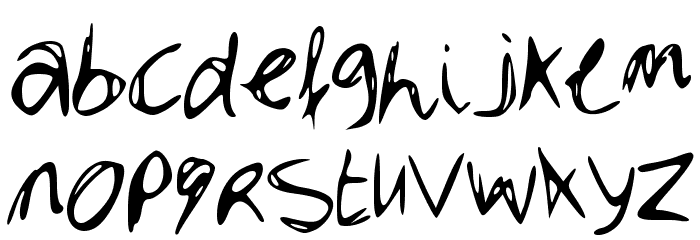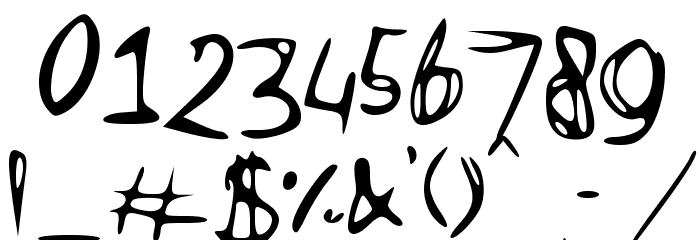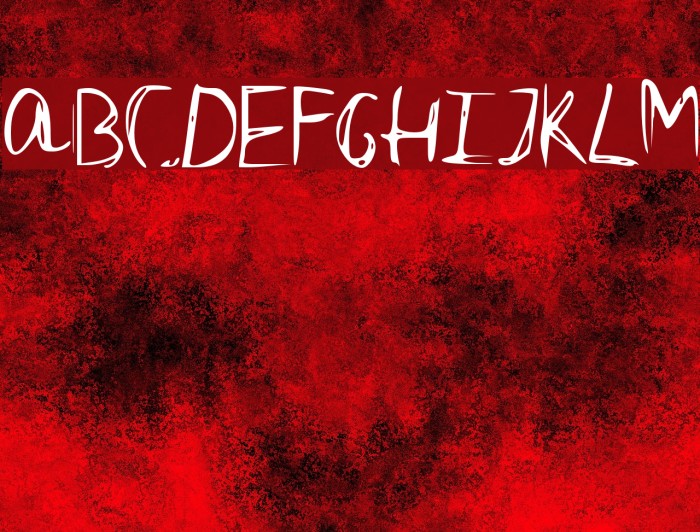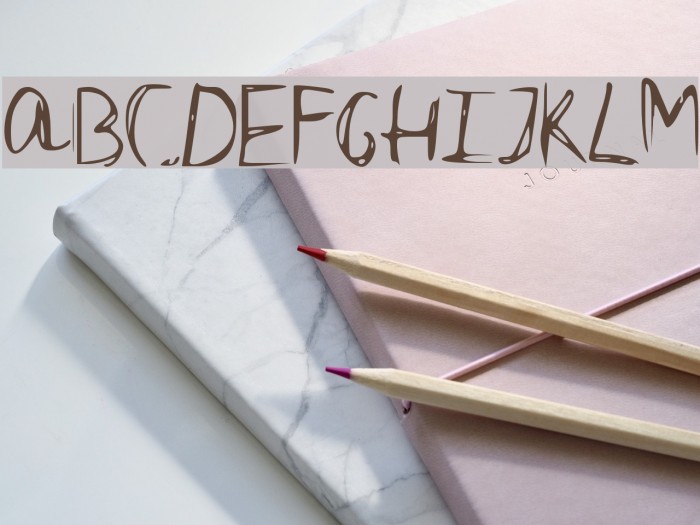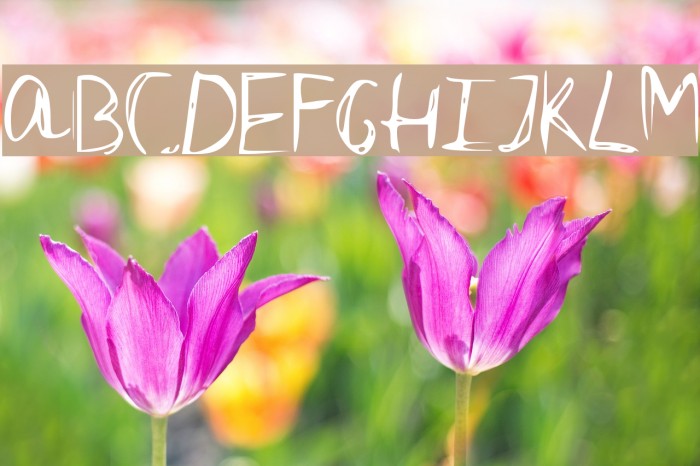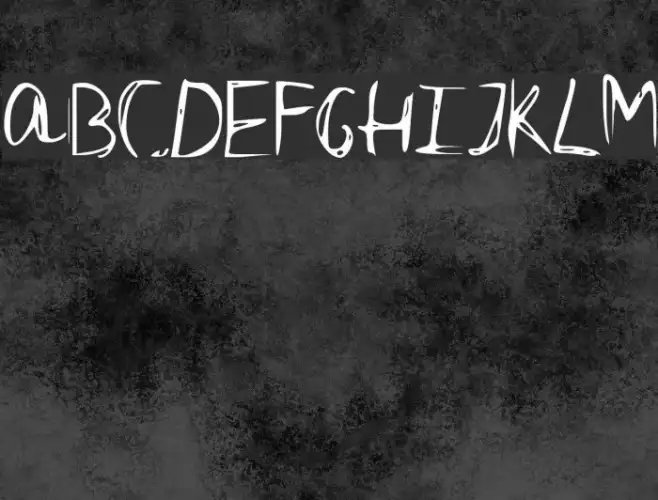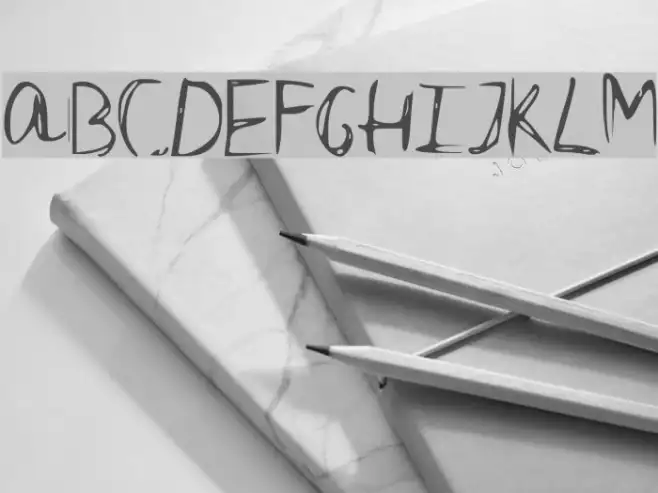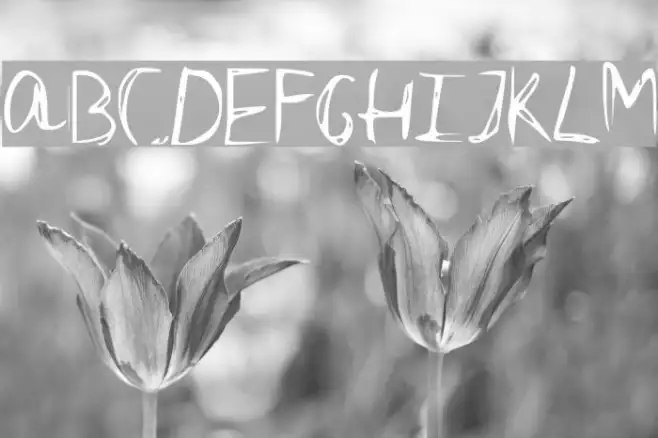
Dubble Font
This font exudes a playful and dynamic energy with its irregular, hand-drawn style. The characters are bold and expressive, featuring varying stroke thicknesses that give it a lively and spontaneous feel. The uppercase letters are particularly striking, with exaggerated curves and angles that create a sense of movement. The lowercase letters maintain this energetic style, with some characters exhibiting unique flourishes. Numbers and special characters are equally bold, ensuring consistency across the font. This font is perfect for projects that require a touch of creativity and individuality.
A bold, hand-drawn font with dynamic and expressive characters.